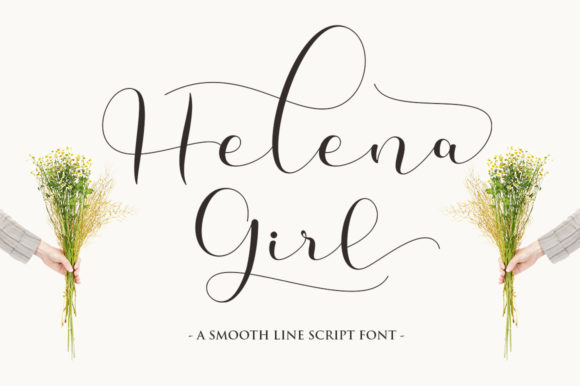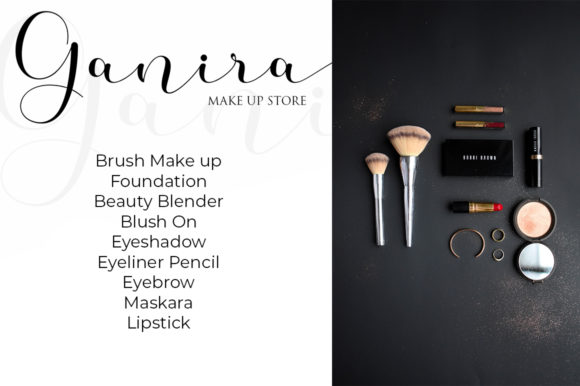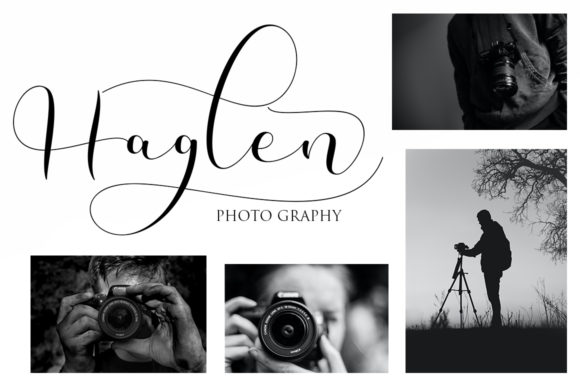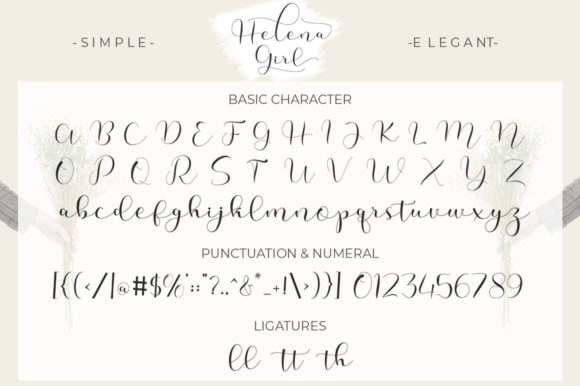
About Helena Girl Font
Helena Girl feels incredibly elegant and flowing. It looks stunning on wedding invitations, thank you cards, quotes, greeting cards, logos, business cards and every other design which needs a handwritten touch. It features a varying baseline, smooth lines, gorgeous glyphs and stunning alternates.